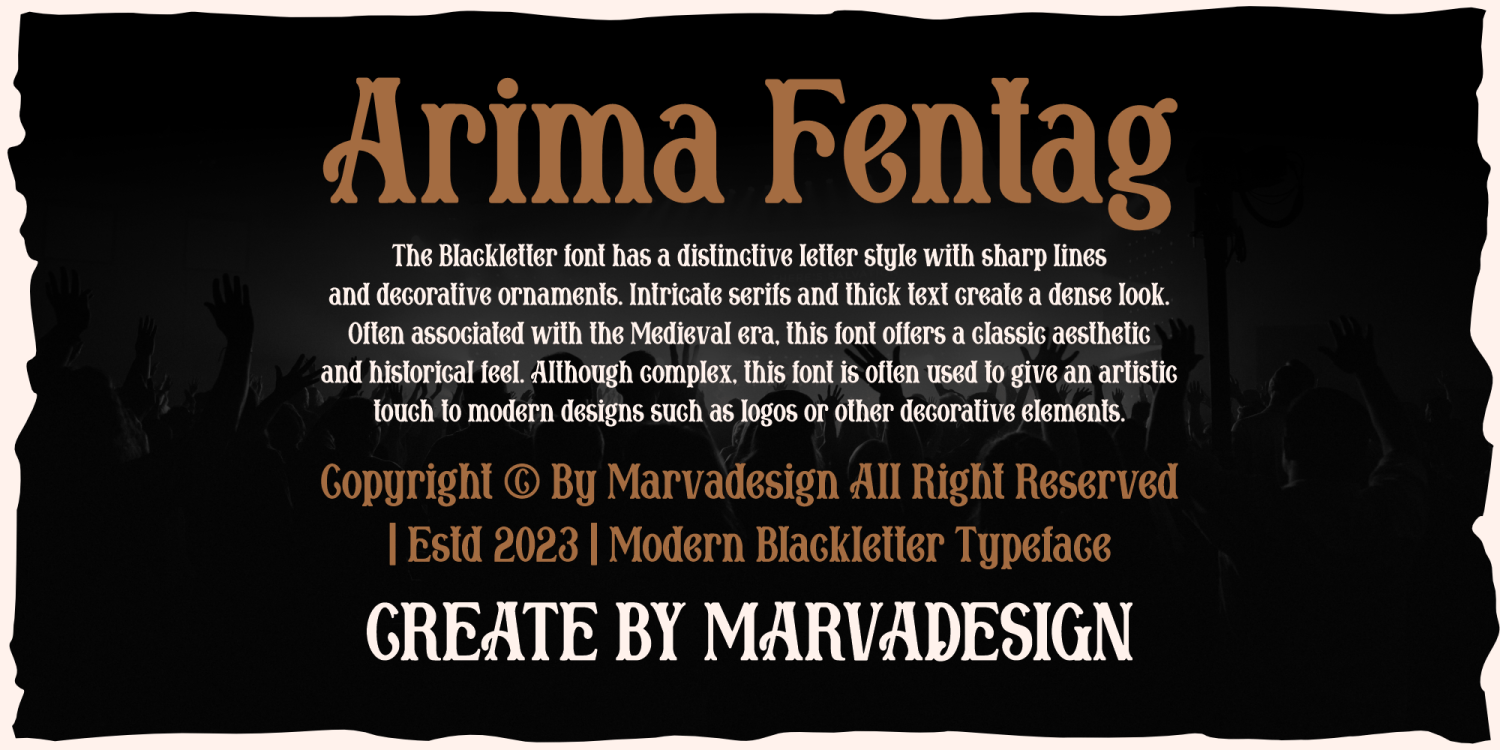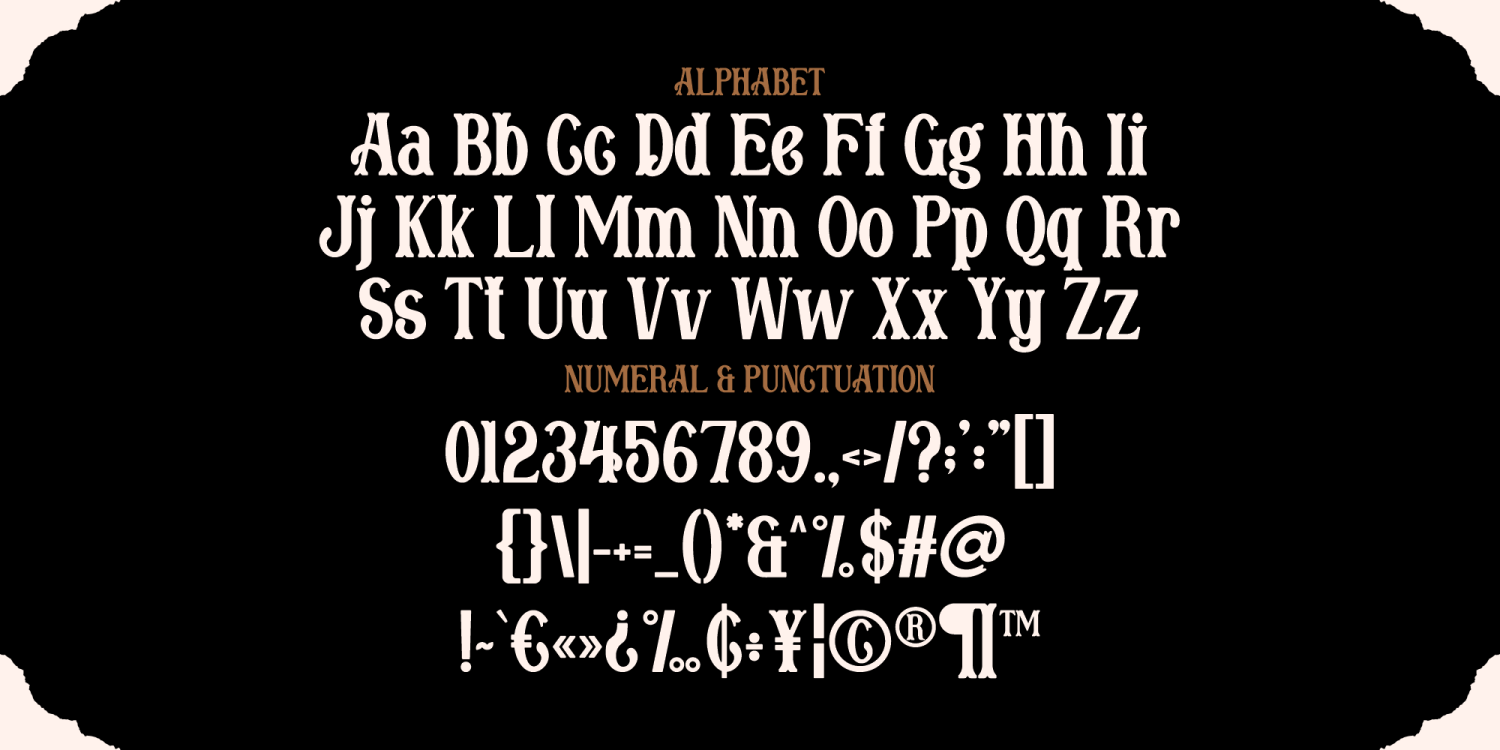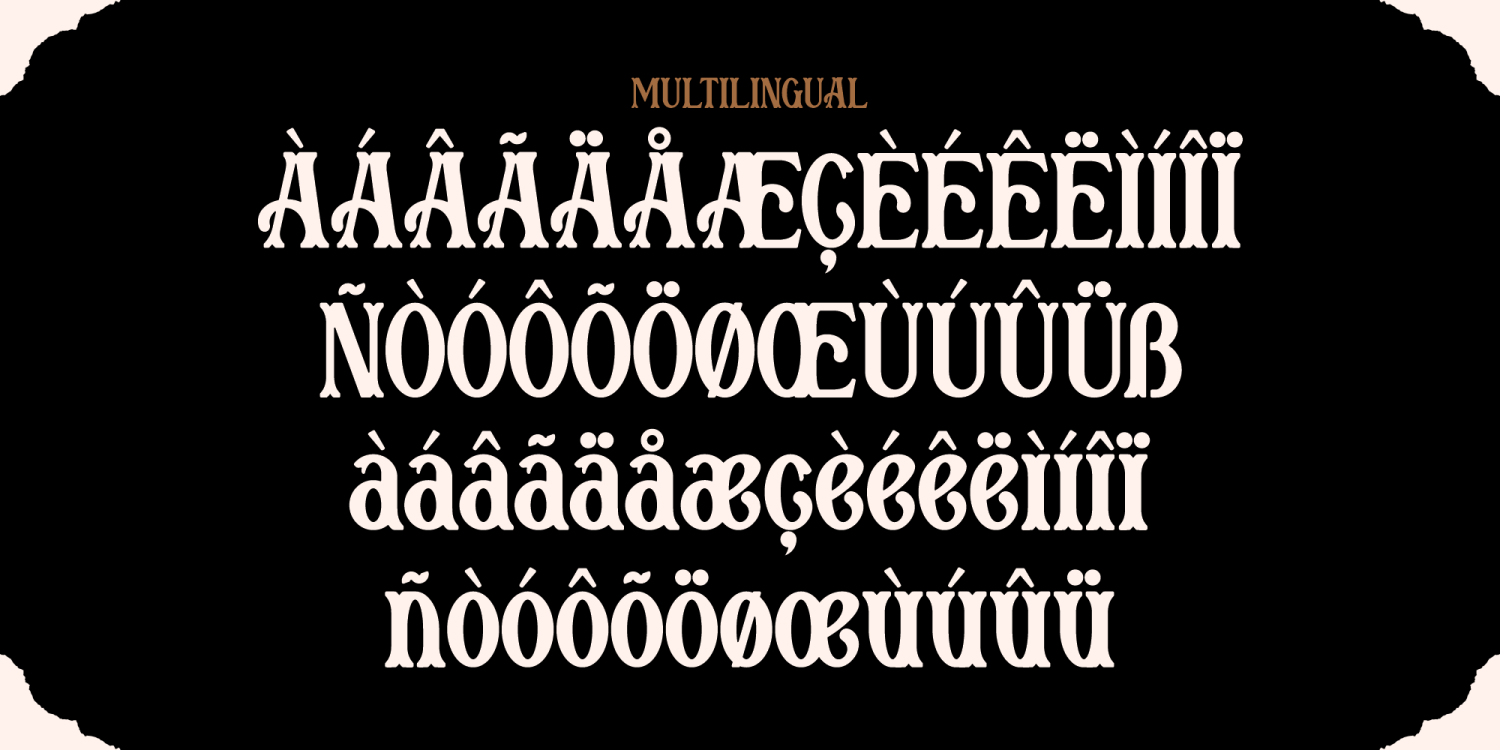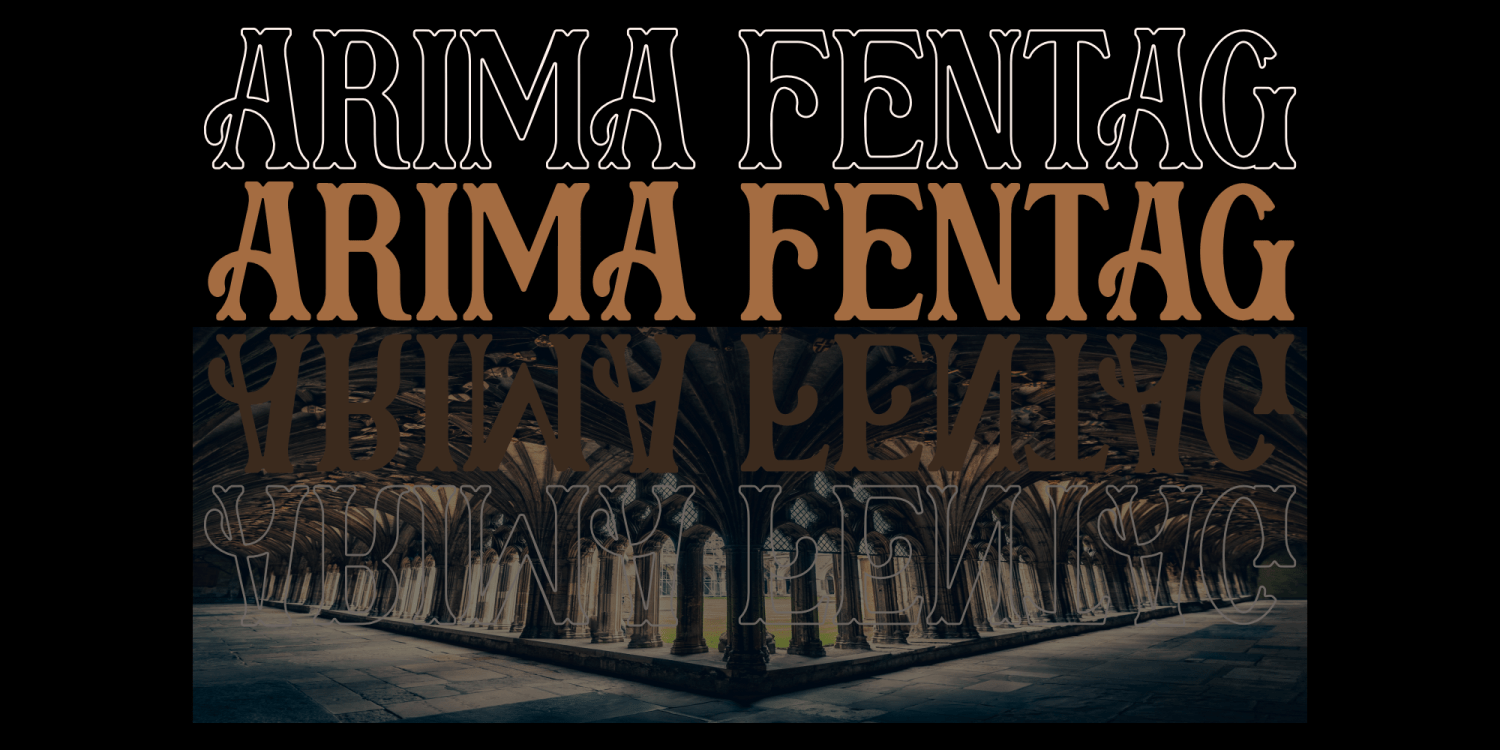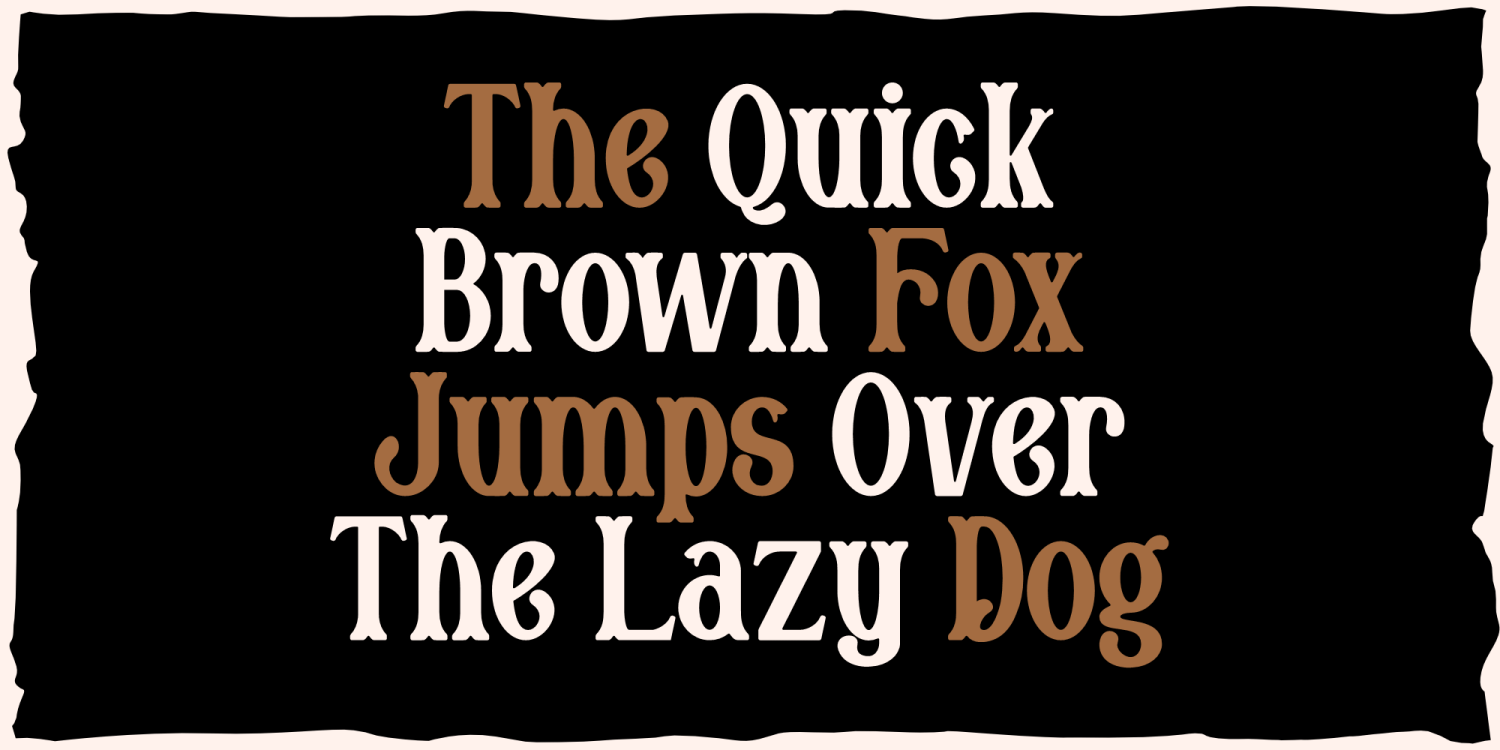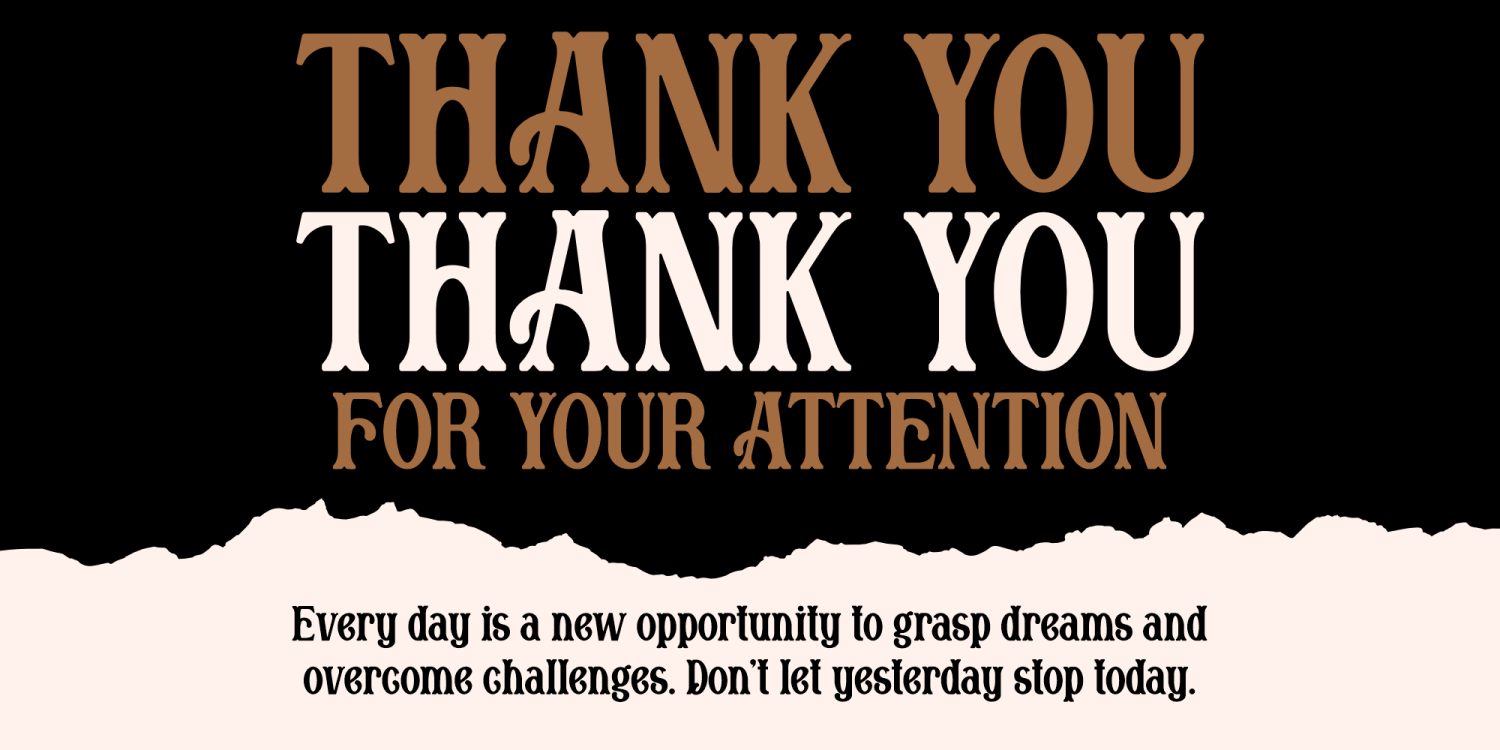
Arima Fentag
Font Family by Marvadesign
Introducing Arima Fentag is a modern blackletter typeface that seamlessly blends historical influences with contemporary design elements. Characterized by its bold, intricate letterforms, this font features sharp lines, pronounced serifs, and subtle ornamental details, making it a perfect choice for projects that require a striking and elegant aesthetic. The design of Arima Fentag is inspired by medieval calligraphy, evoking a sense of tradition and historical richness while maintaining excellent readability. The letters are thick and well-spaced, ensuring legibility in various applications, from branding and logo design to editorial layouts and posters. The decorative embellishments add a touch of sophistication, enhancing the overall visual appeal. With a comprehensive set of uppercase and lowercase letters, numerals, punctuation, and special symbols, Arima Fentag is a versatile typeface suitable for both digital and print media. Its artistic yet structured appearance makes it ideal for projects that aim to convey a sense of grandeur, mystery, or vintage charm. Whether used in gothic-inspired artwork, event invitations, or merchandise branding, Arima Fentag provides a timeless typographic solution for designers seeking a distinctive and memorable font.